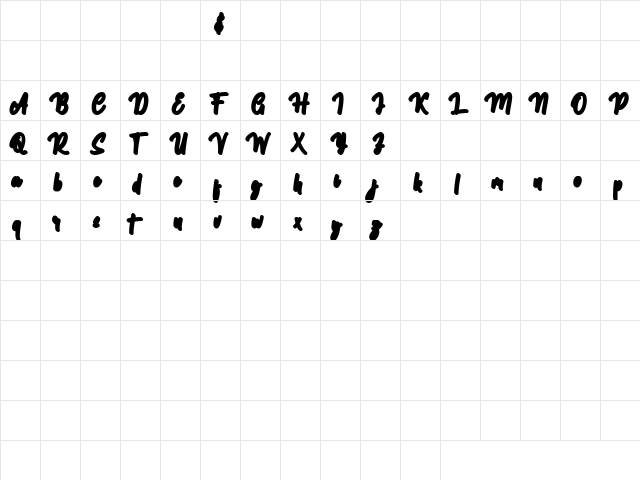
Bankitte Extrude Personal Use Regular
Design Context for Bankitte Extrude Personal Use Typeface
Bankitte Extrude Personal Use is a composed and adaptable typeface that performs quietly and consistently across a wide range of design contexts.